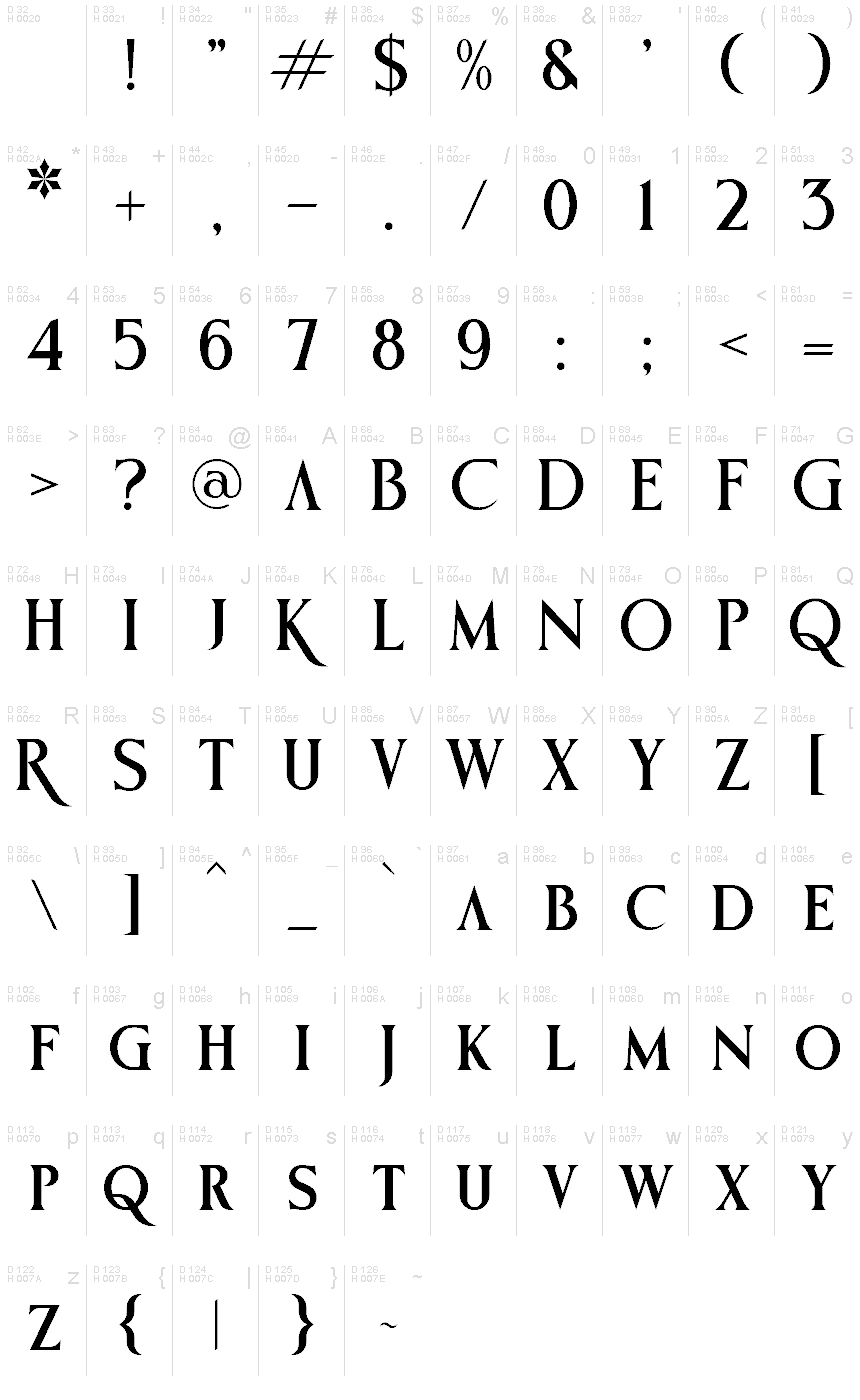
MONSTER OF FANTASY
Monster of Fantasy font by Storytype Studio is a free serif font with an elegant style. Whether it’s the unique serifs, sharp angles or other mystic decorative elements, this typeface will surprise at only the first look. It was inspired by medieval art and architecture resulting in a historic characteristic everybody will notice.
Use Monster of Fantasy for a book cover, Halloween poster design, tattoo typography, movie title, or video game interface. Additionally, integrate it into logos and identity designs for museums and similar institutions. More use cases include packaging where users can design brand labels and product names in a whole new style.